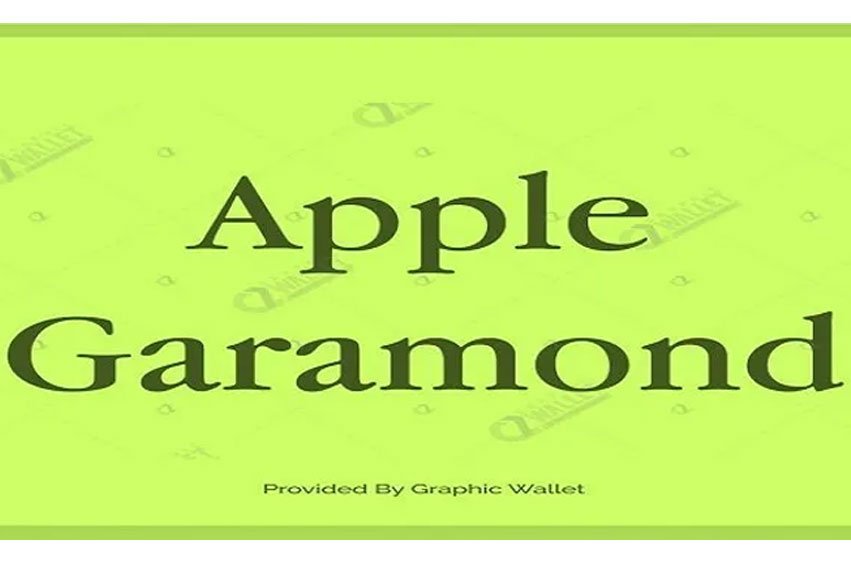
Apple Garamond Font is a beautiful, small-serif typeface implemented by Apple Garamond and can be downloaded for personal use of the Internet freely.